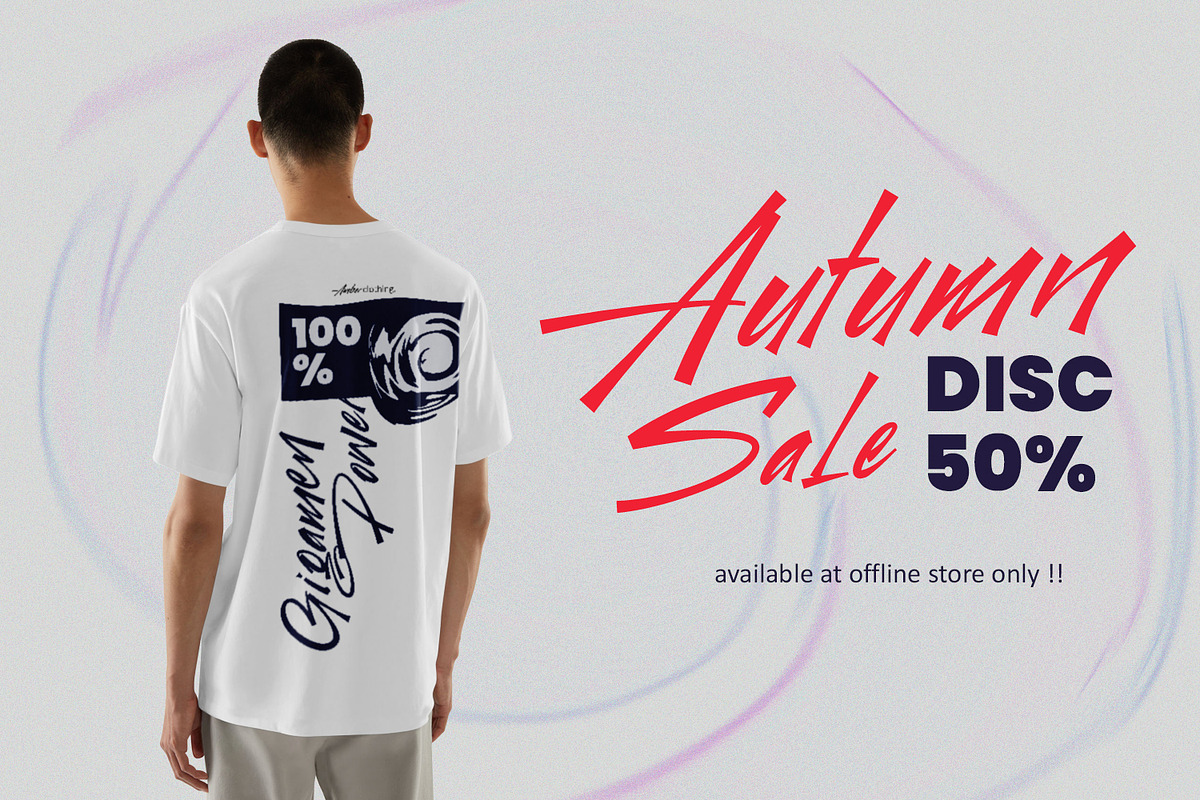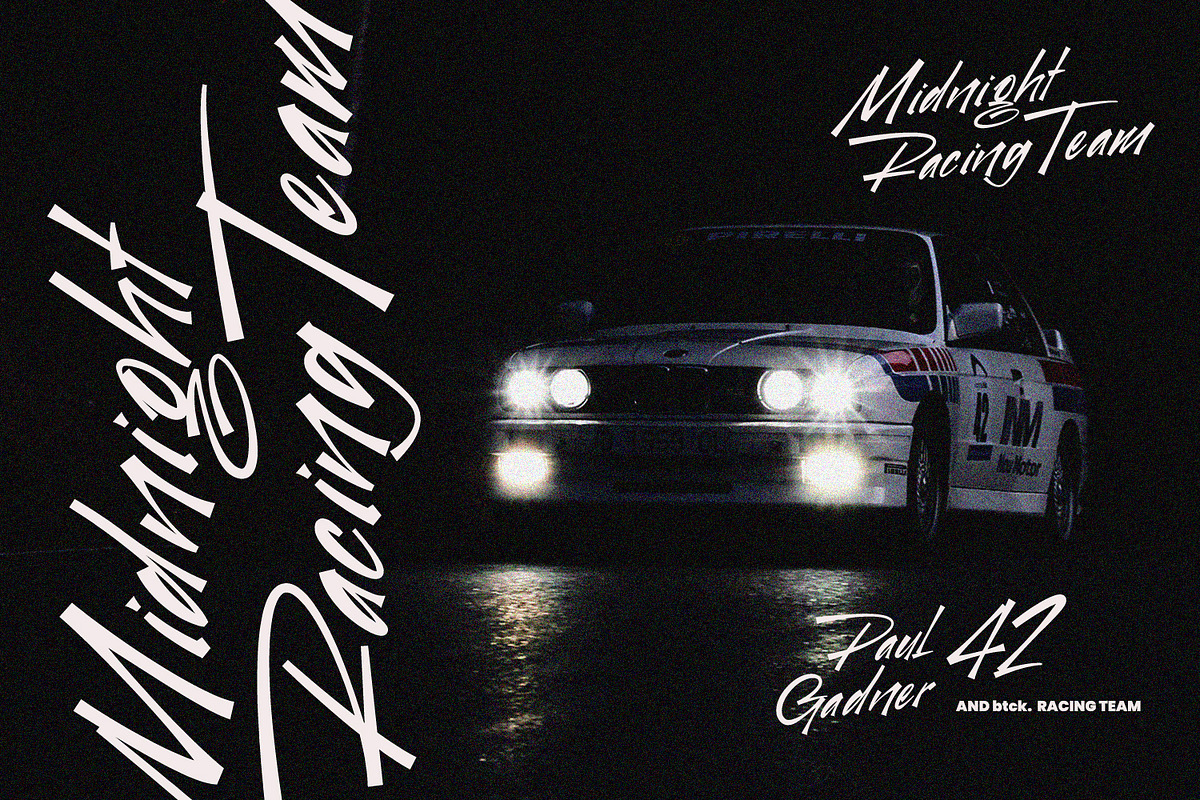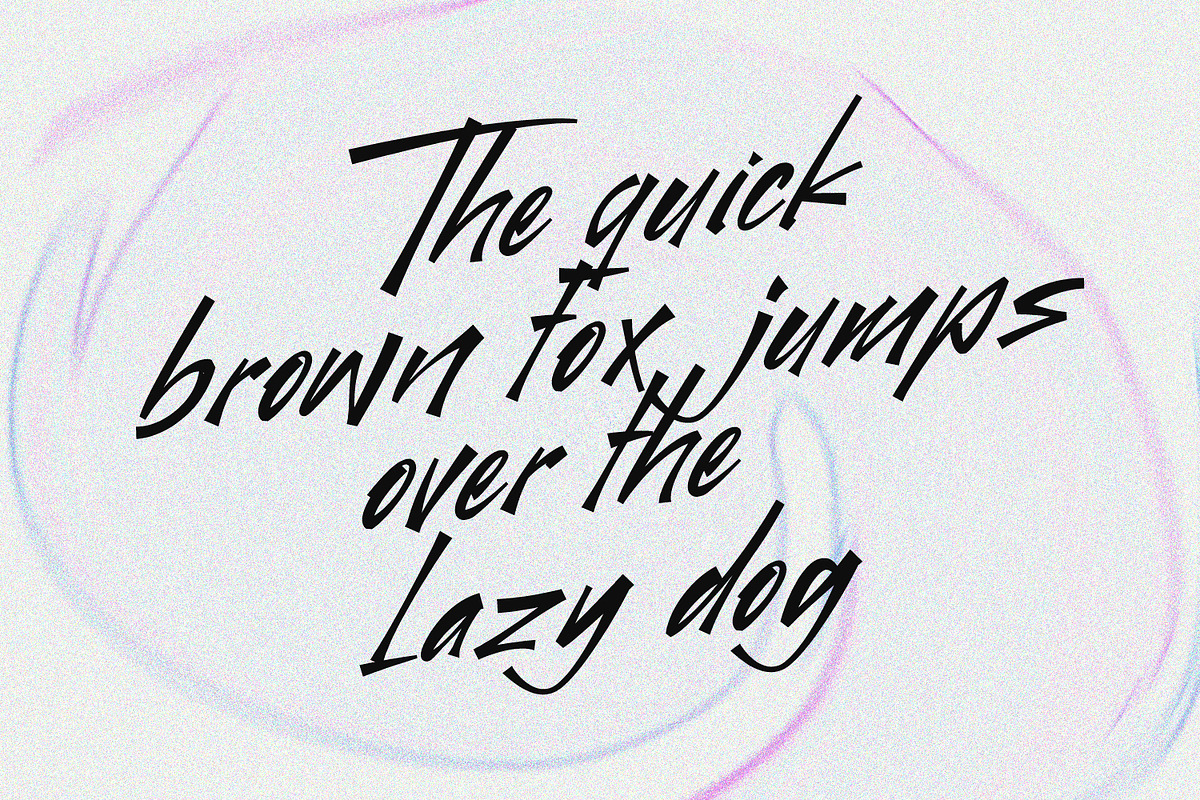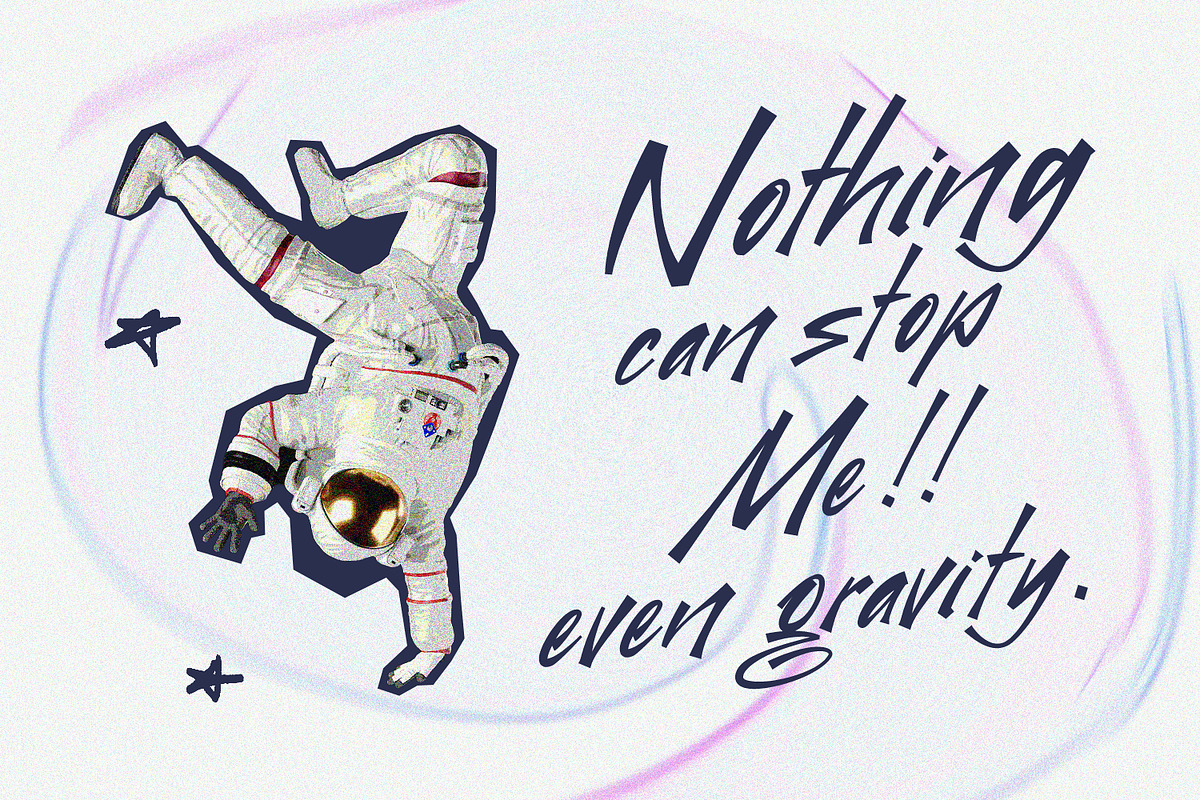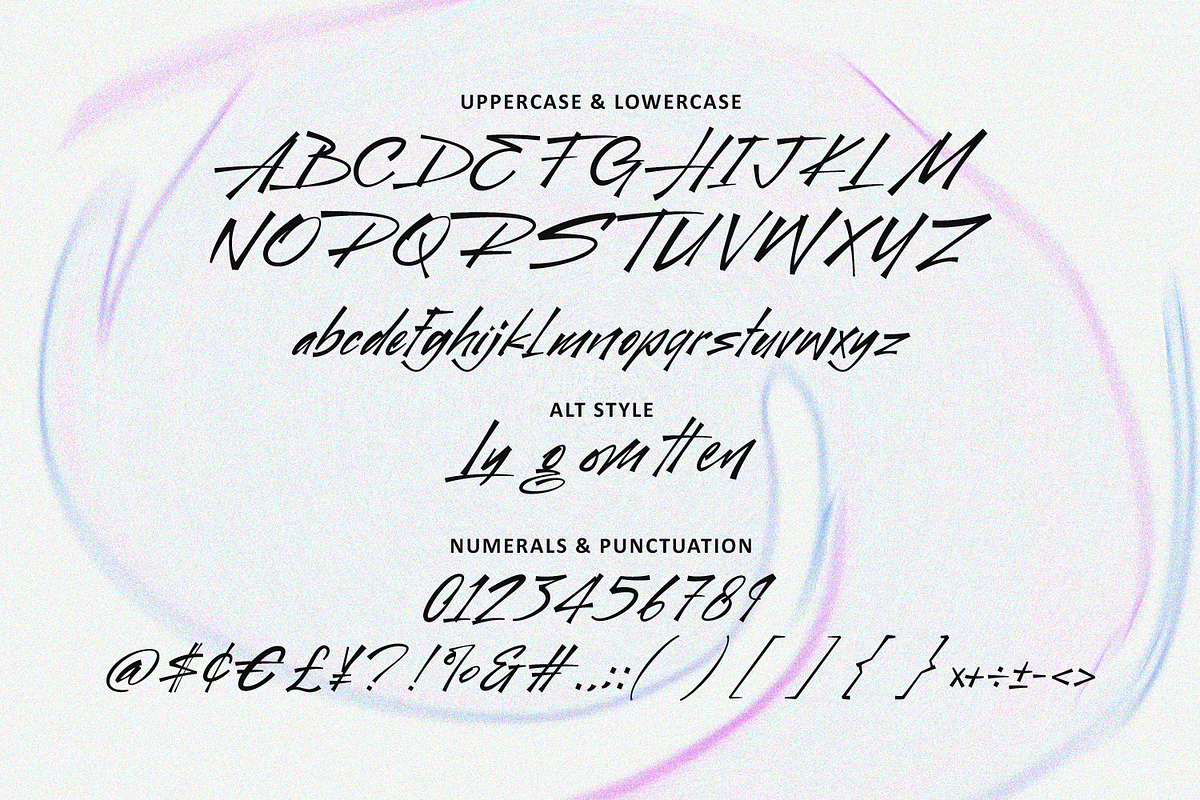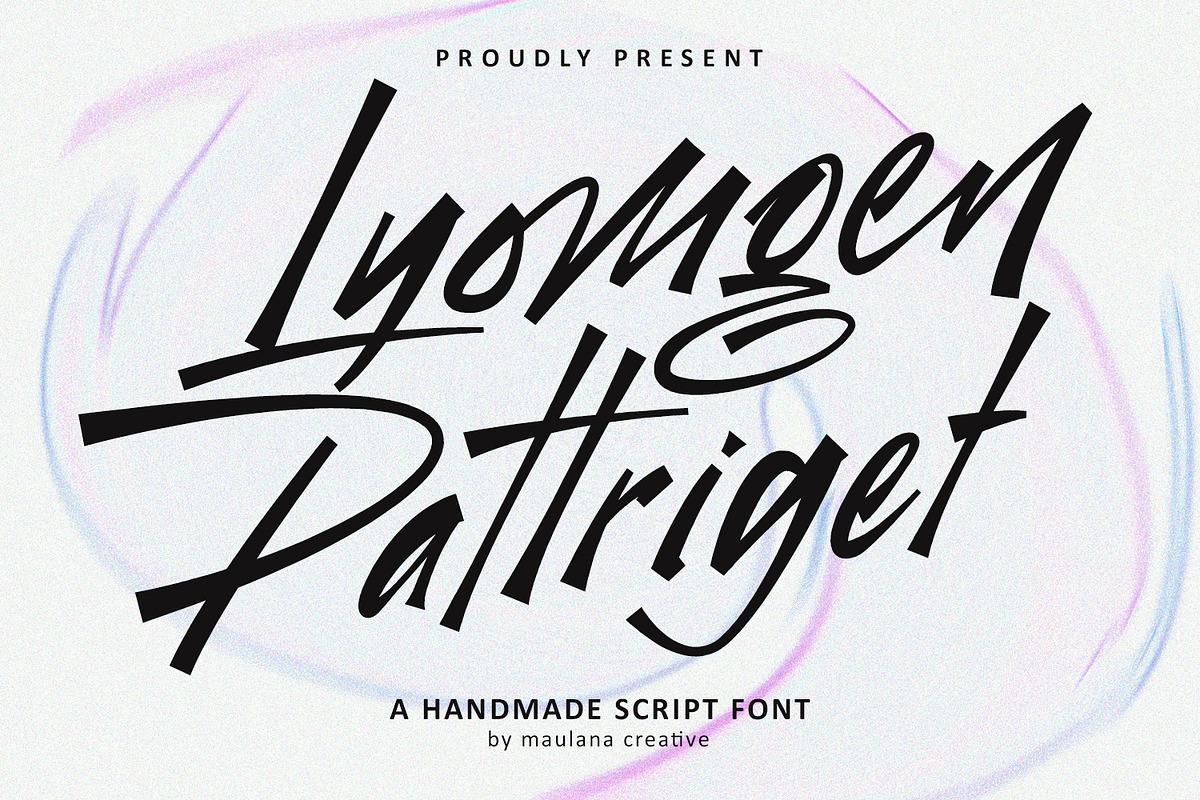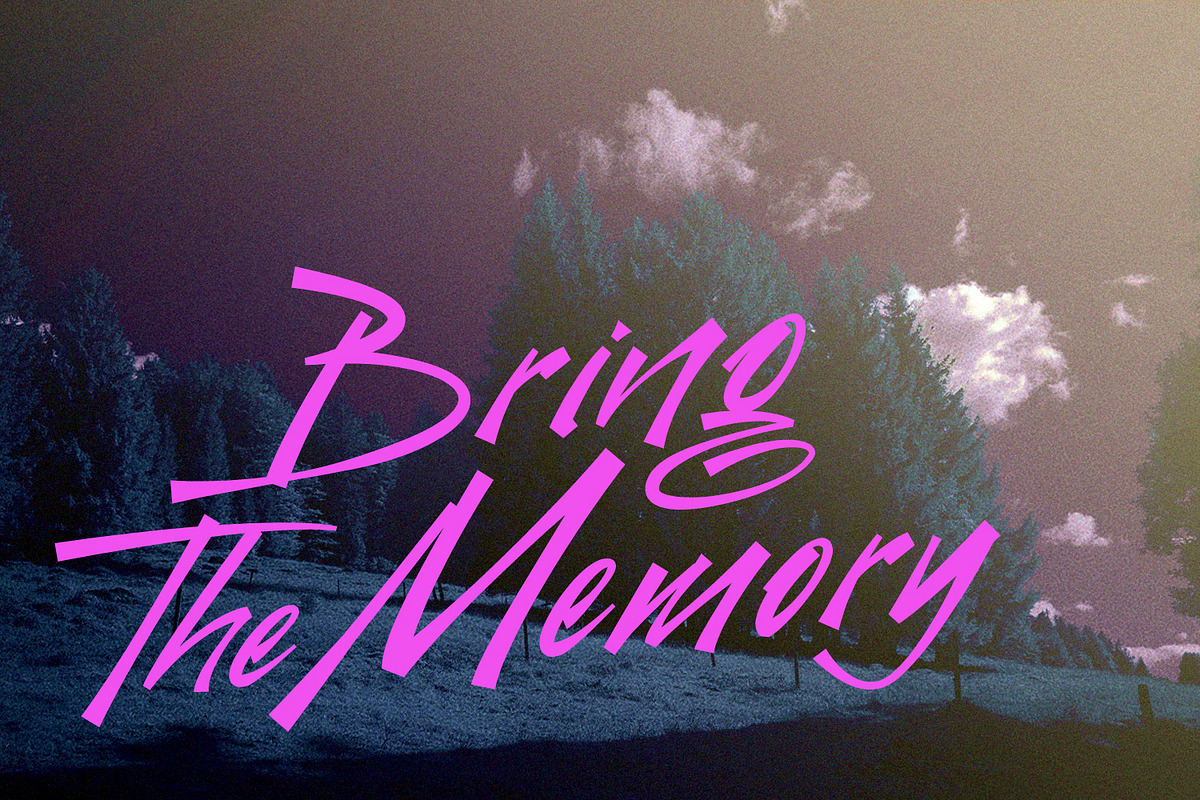
Lyomgen Pattriget Handmade Script
Give your designs an authentic handcrafted feel. “Lyomgen Pattriget Handmade Script Font” is perfectly suited to stationery, logos and much more. Include alternative character and ligature characters.
- Ligature and Alternate